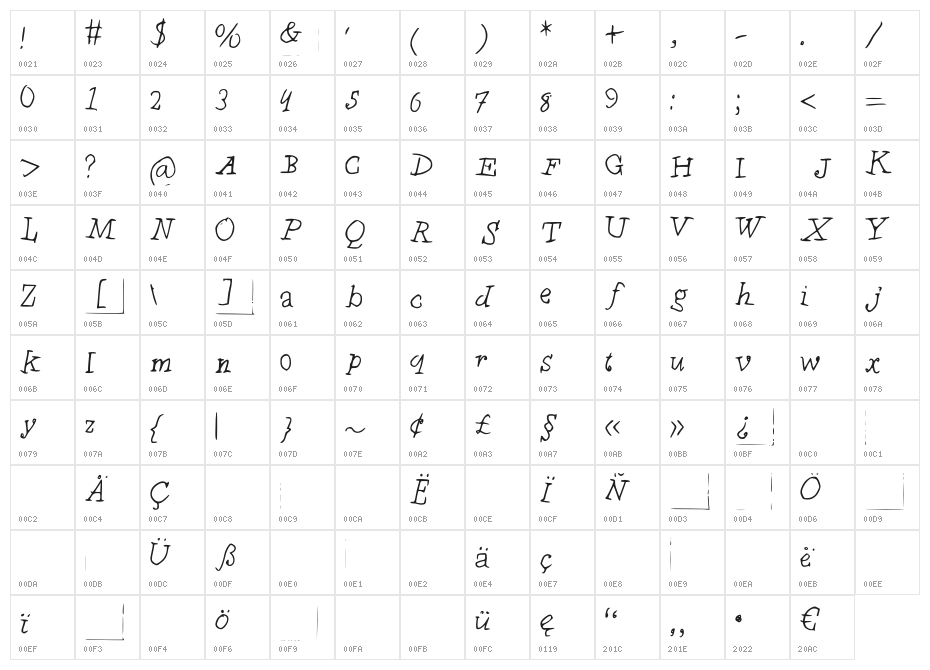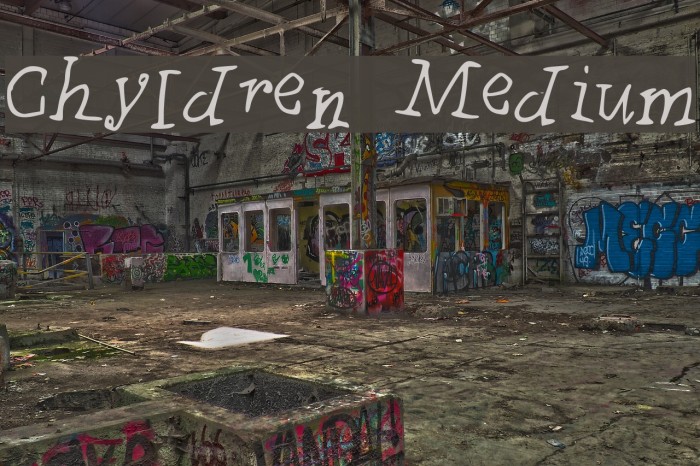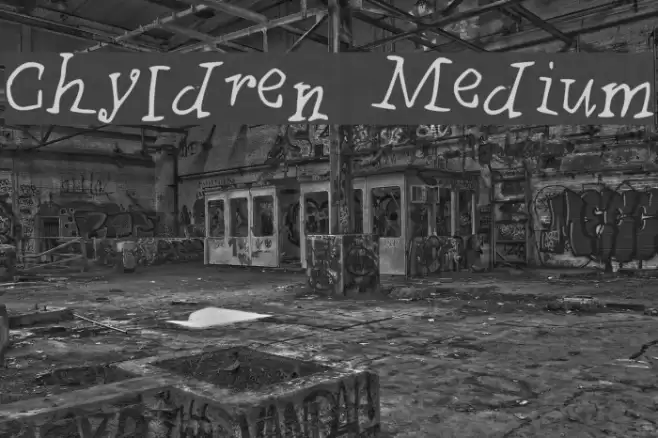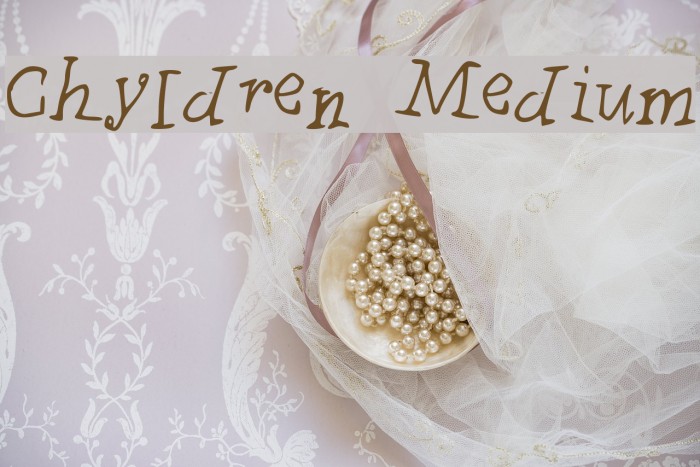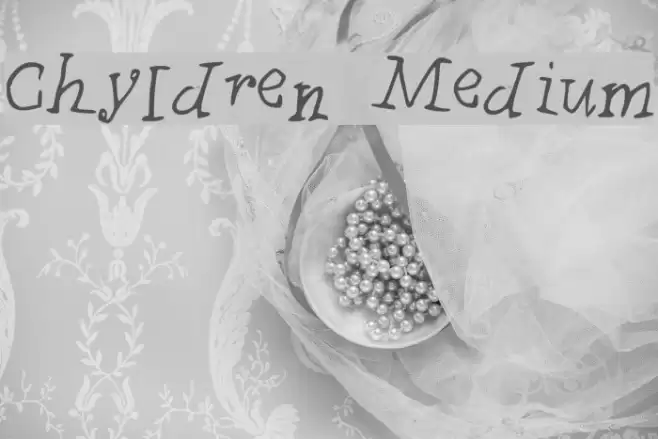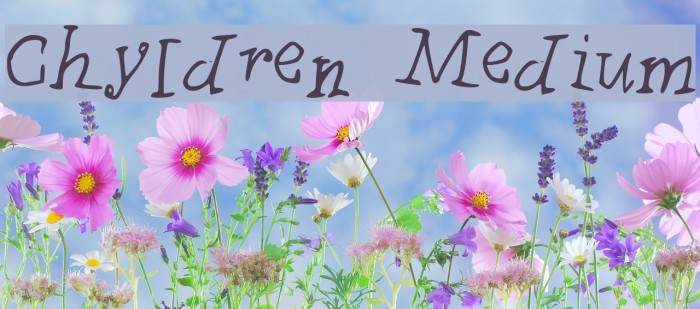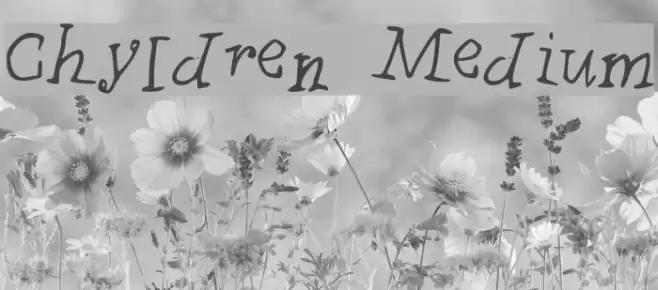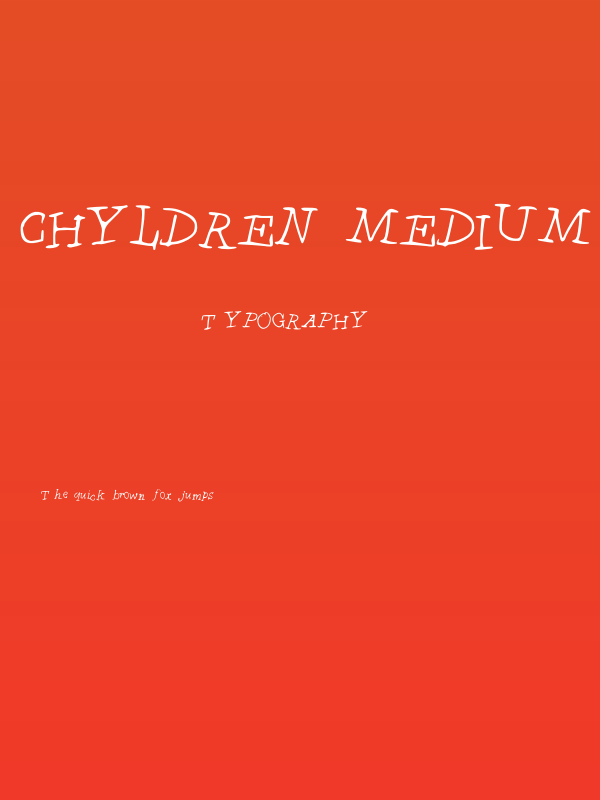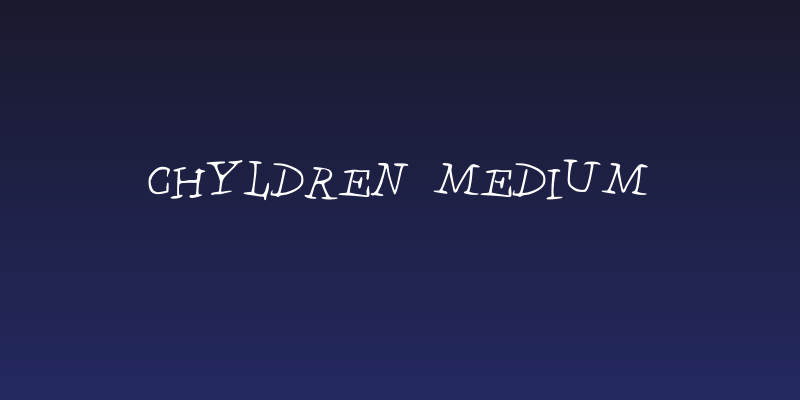
Chyldren Medium Font
Chyldren Medium Description
This font features a playful and whimsical design, characterized by its uneven strokes and irregular shapes. The letters exhibit a hand-drawn quality, with varying line thicknesses and a slightly tilted appearance, giving it a lively and dynamic feel. The uppercase letters are bold and prominent, while the lowercase letters maintain a consistent style with a touch of elegance. Numbers and special characters follow the same playful aesthetic, making the font versatile for creative projects. Its unique style is perfect for capturing attention and adding a touch of personality to any design.
| Proposed Projects | Ideal for children's book covers, playful branding, greeting cards, and creative posters. |